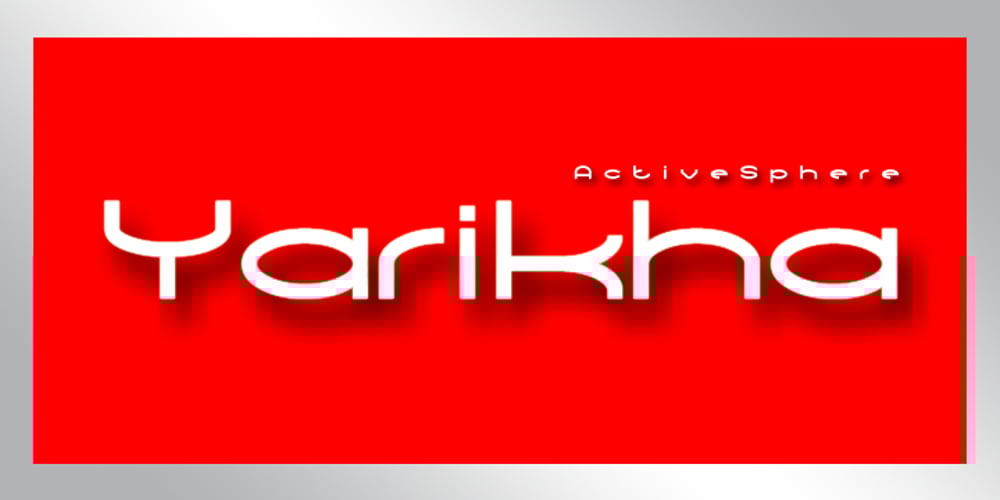
Yarikha
Yarikha font
Yarikha Font Family was designed by Ronnie Dela Cruz and published by ActiveSphere. Yarikha contains 10 styles and family package options. Yarikha is a geometric display font and works best in display applications, such as posters, logos and titles. It has five weights: regular, semibold, demibold, bold and extrabold, each available in italic, making a total of ten styles. Each style has a full upper and lower-case, accents, punctuation and a selection of monetary symbols.